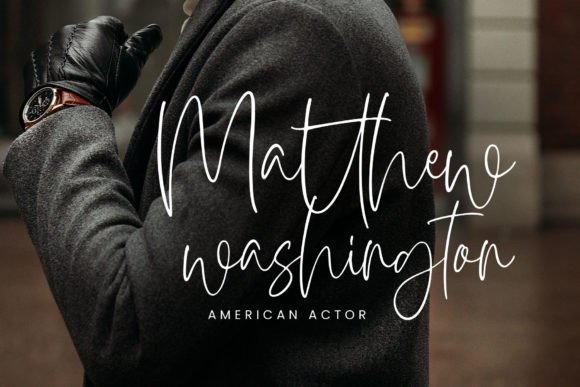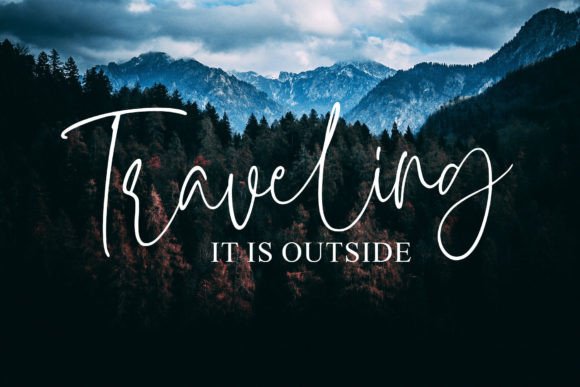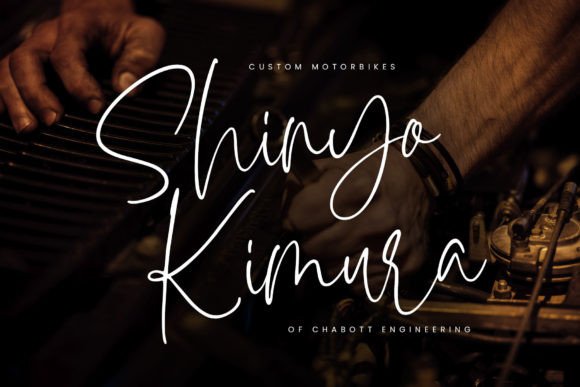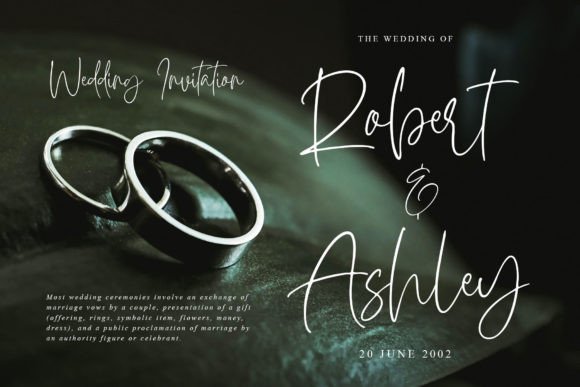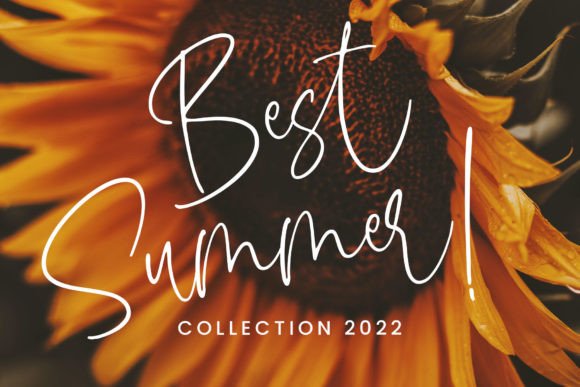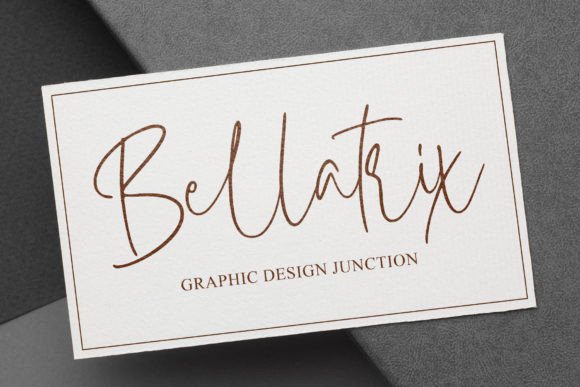
Introduction to Glamonte Signature Font
Introducing Glamonte Signature.
A combination of signature and handwriting style that visualizes unique and classy looks This font has natural and feminine vibes, so it is suitable for use in media that requires an elegant concept & minimalist.
Key Features of Glamonte Signature Font
Why Choose Glamonte Signature Font?
Glamonte Signature Font offers exceptional quality and versatility, making it a valuable addition to your design toolkit. Whether you’re creating for personal projects or commercial use, Glamonte Signature Font delivers professional results.